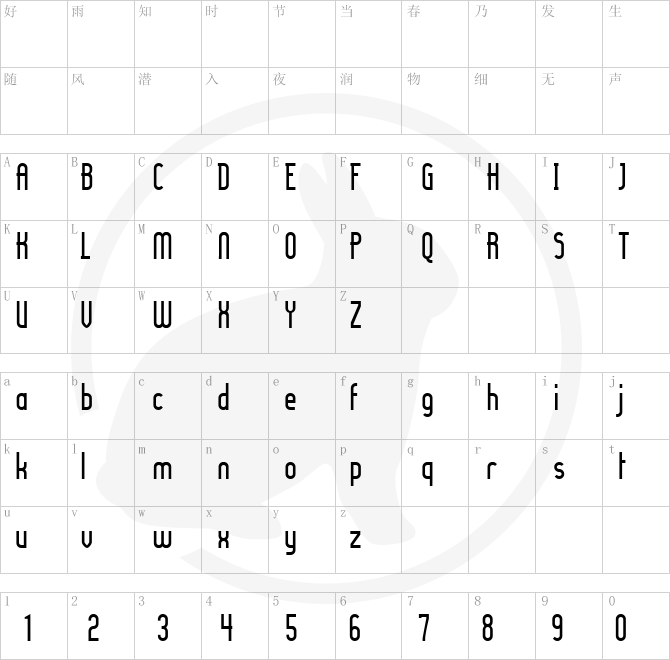
- Font Name:Lady Ice Revisited
Lady-Ice-Revisited.ttf is a very beautiful artistic font, Lady-Ice-Revisited.ttf is widely used in the design and printing of various books and pictures,Lady-Ice-Revisited.ttf has a strong visual impact,Lady-Ice-Revisited.ttf is a commonly used font in newspapers, magazines and books, and is used in posters, e-commerce Poster design, store design, logo design, font design and other fields.Lady-Ice-Revisited.